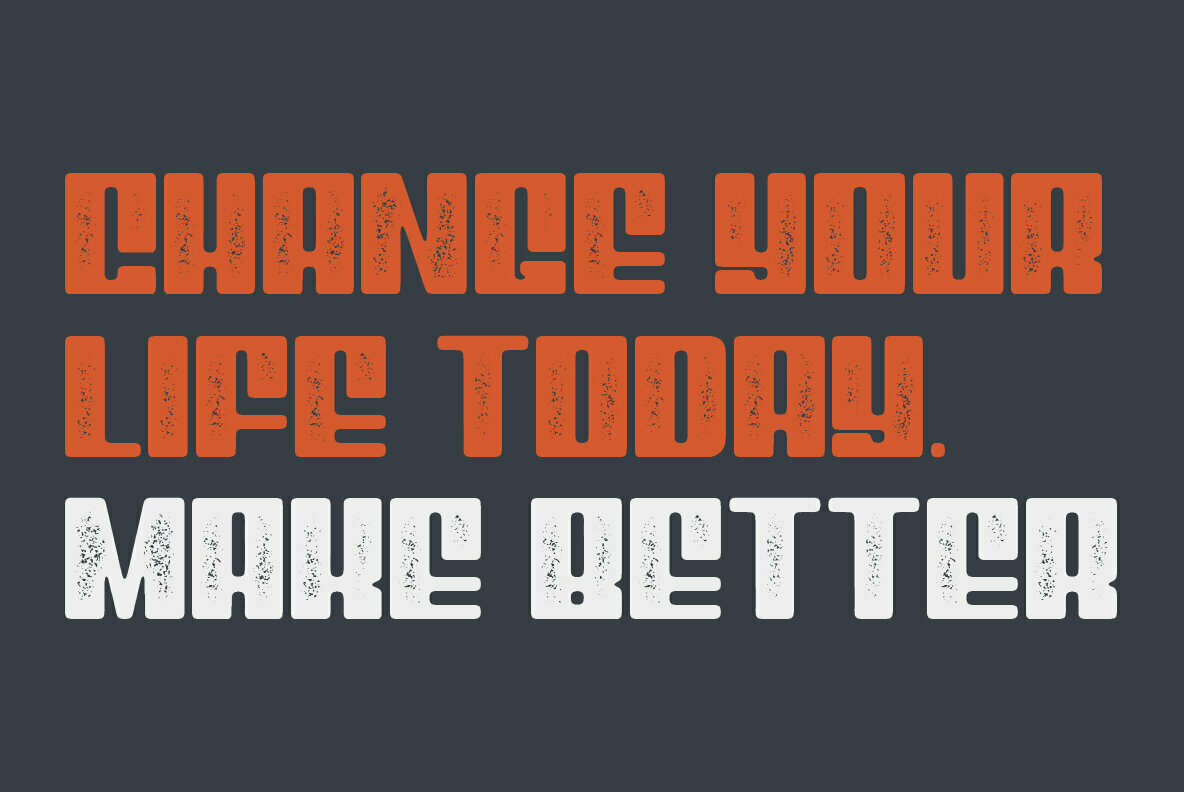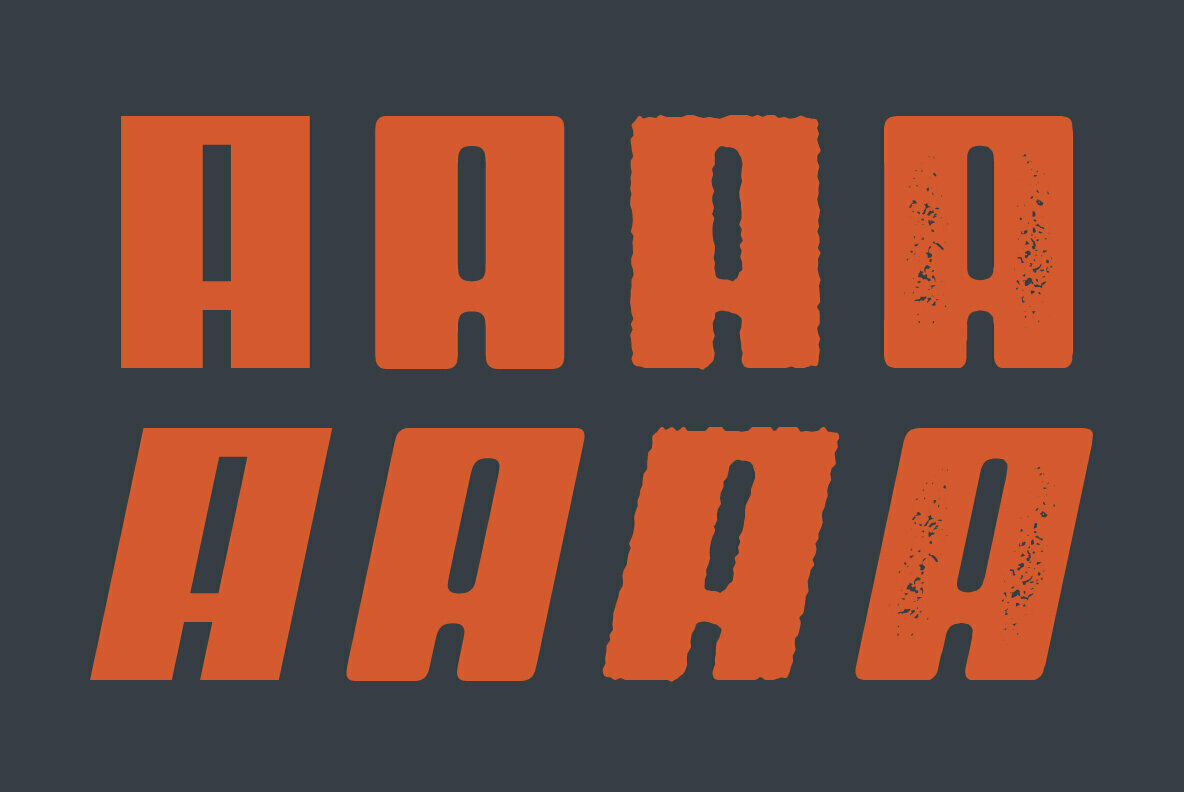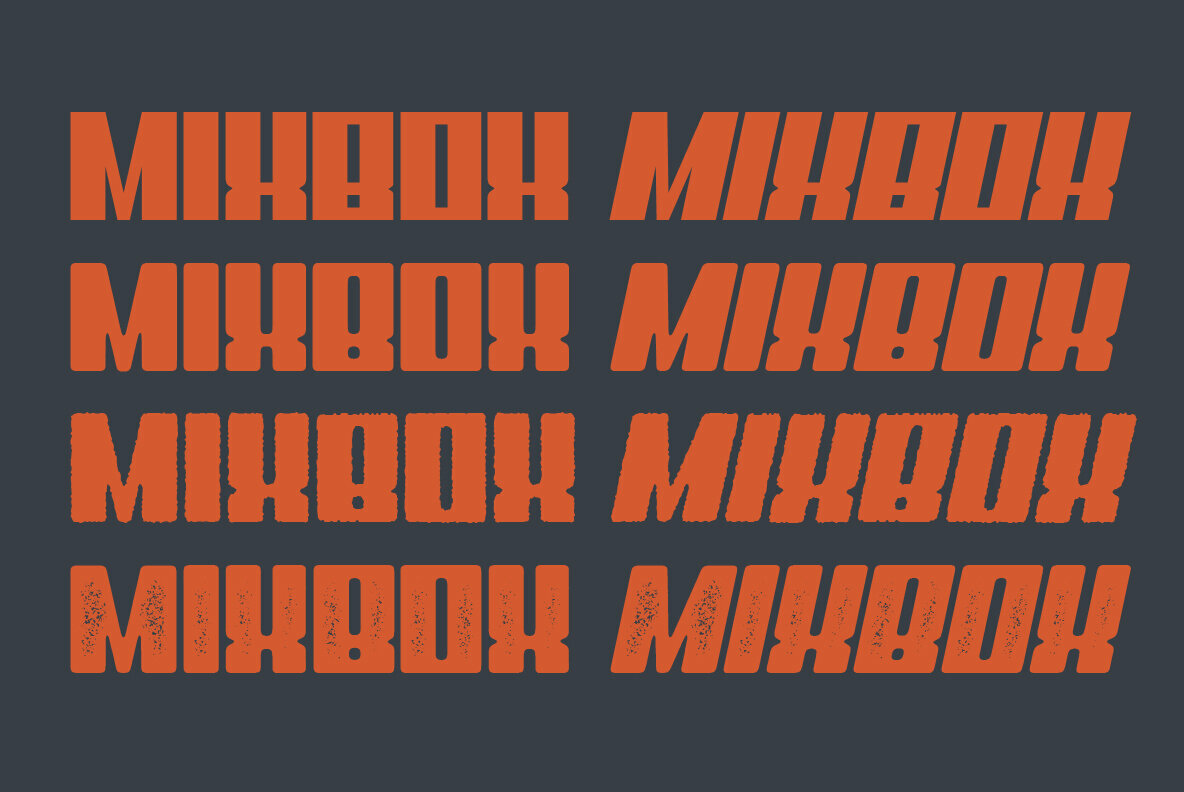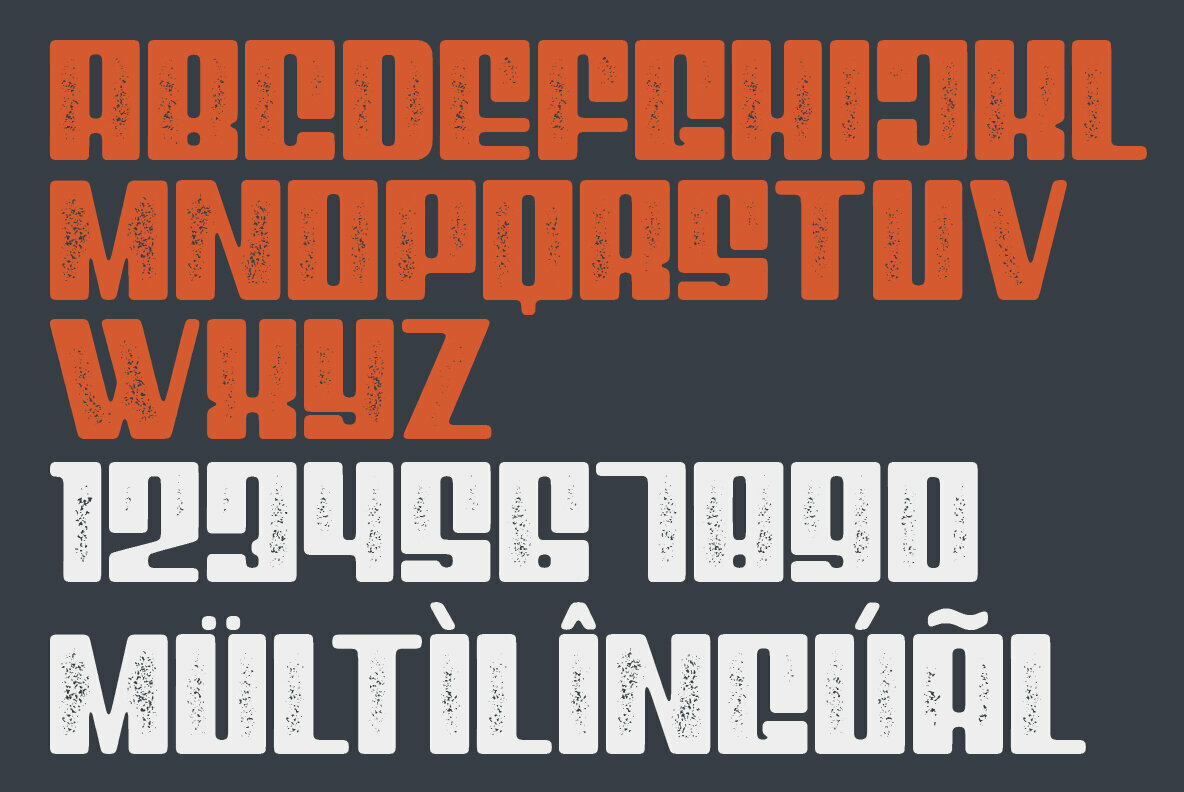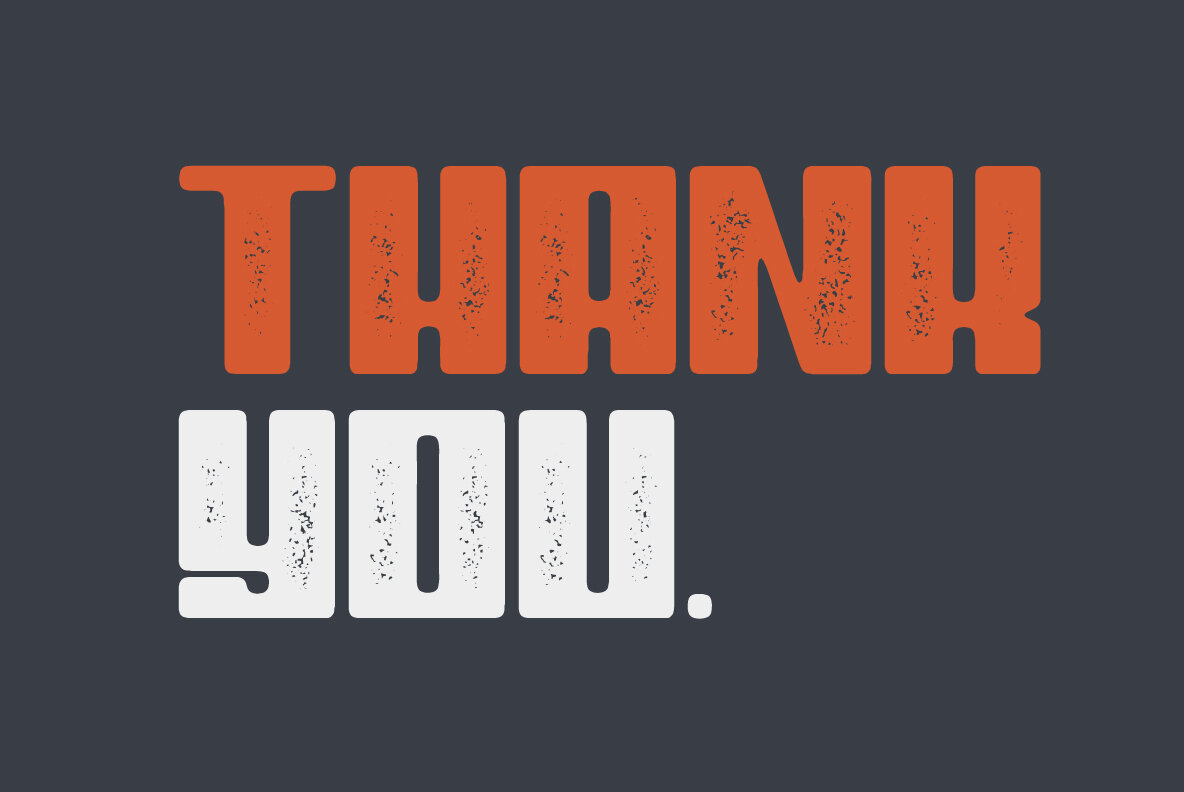
MixBox Font
The MixBox font family by Sabrtype Studio is a versatile toolkit for any designer, offering eight distinct styles that adapt to diverse creative demands. Whether the project requires a clean finish or a textured feel, MixBox provides an elegant solution for each need, enhancing typographic explorations.MixBox: A Dynamic Font Family with Eight Unique Styles